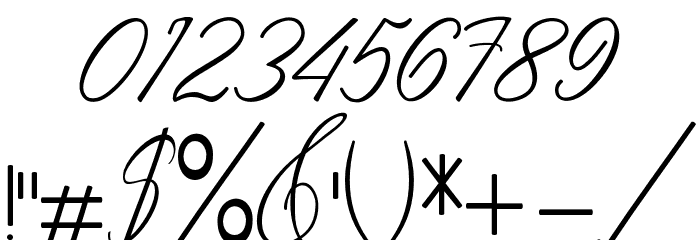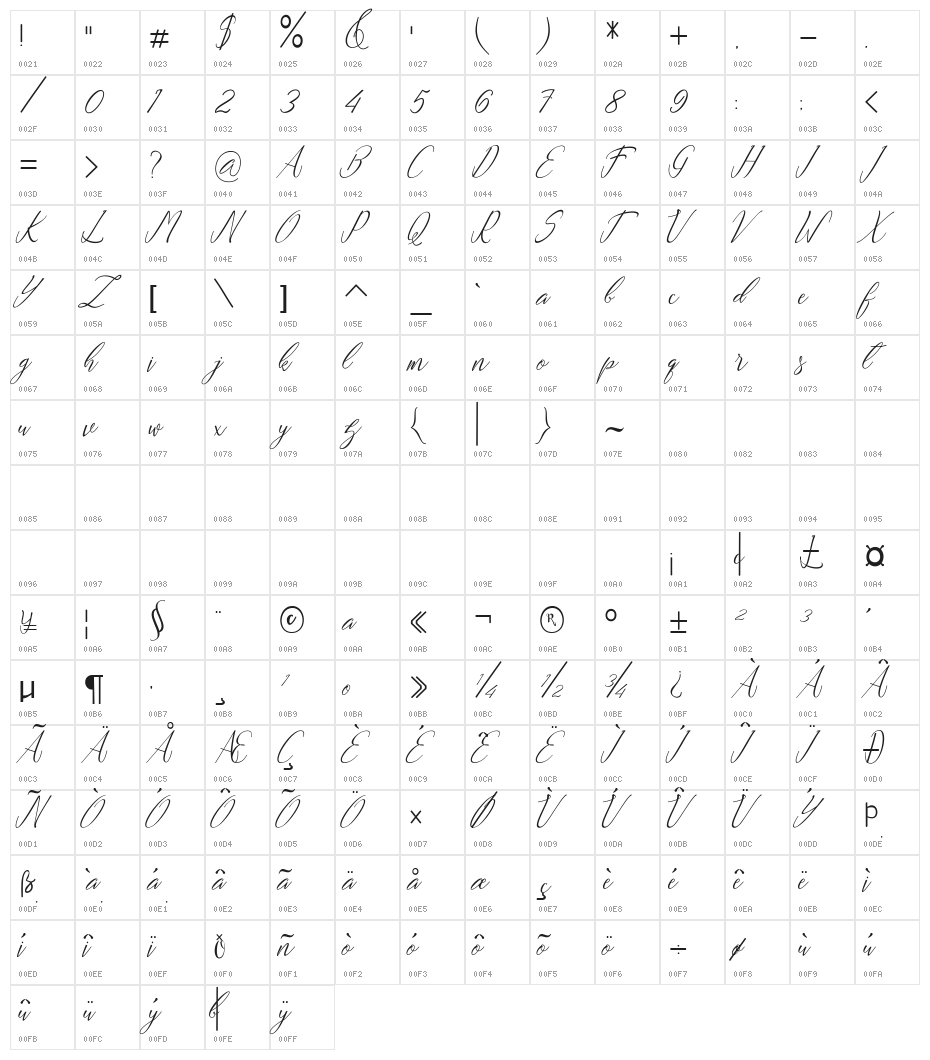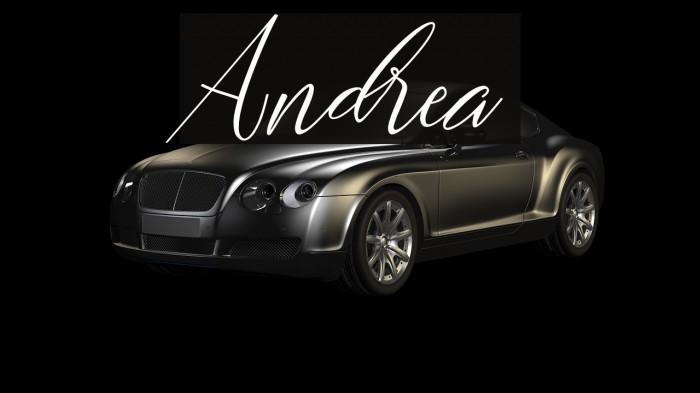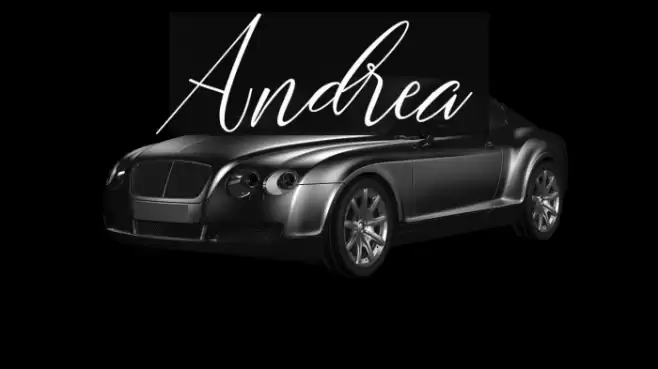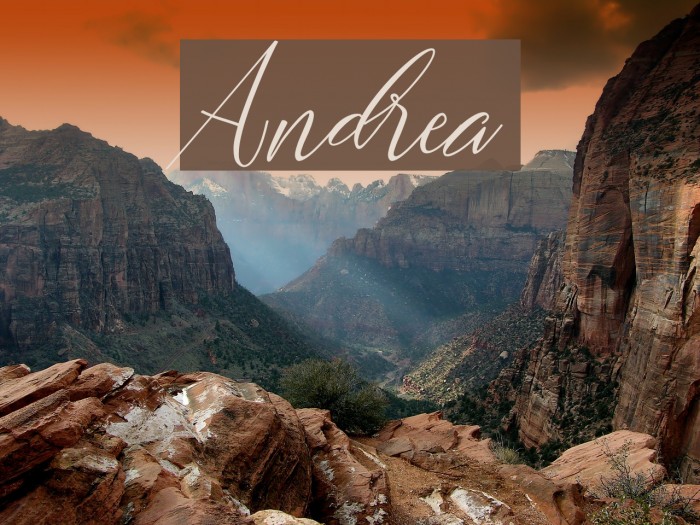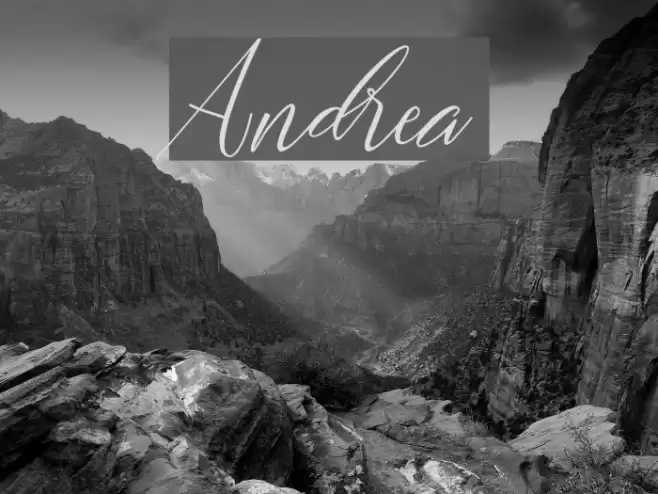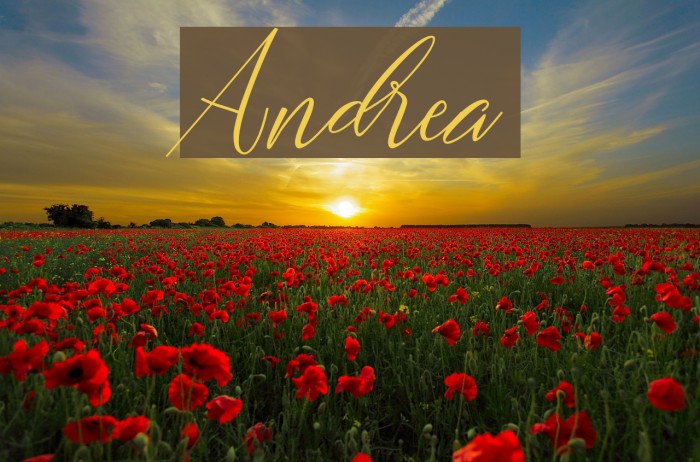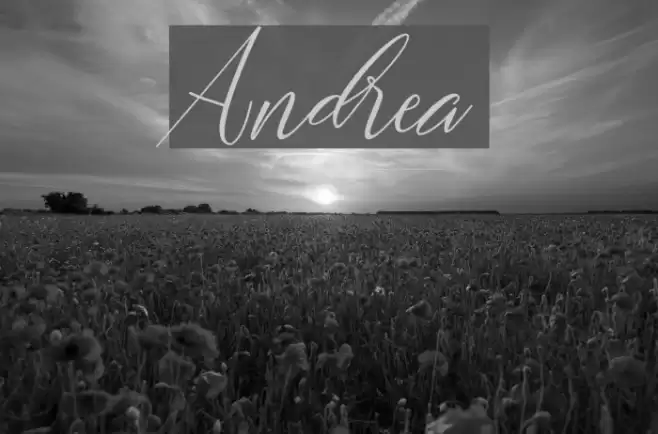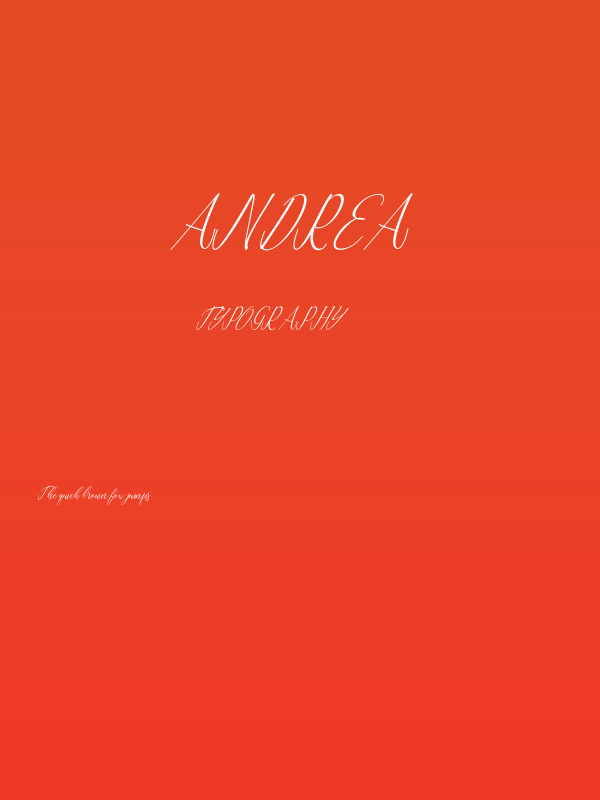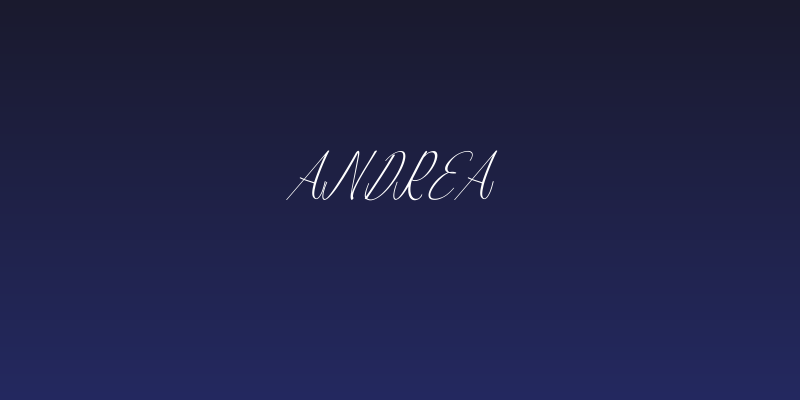
Andrea Font
Andrea Description
This elegant script font features flowing, interconnected letters that mimic the fluidity of cursive handwriting. The uppercase letters are tall and graceful, with sweeping ascenders and descenders that add a sense of movement and sophistication. The lowercase letters maintain a consistent style, with smooth curves and loops that enhance readability while preserving the font's decorative appeal. The numerals are designed to match the overall aesthetic, with a slight slant and consistent stroke width. Special characters are thoughtfully integrated, maintaining the font's cohesive look. This font is ideal for projects that require a touch of elegance and personal flair.
| Proposed Projects | Ideal for wedding invitations, greeting cards, elegant branding, and personal stationery. |